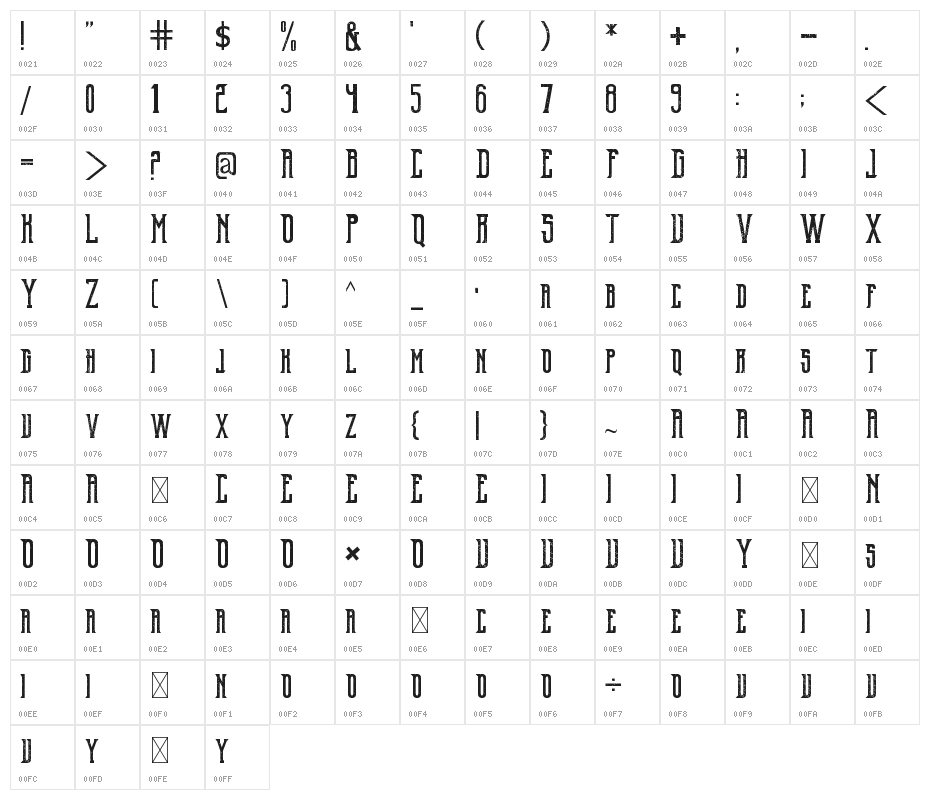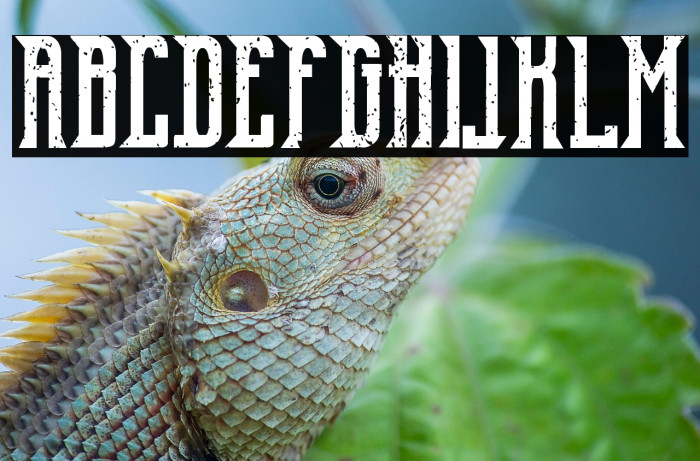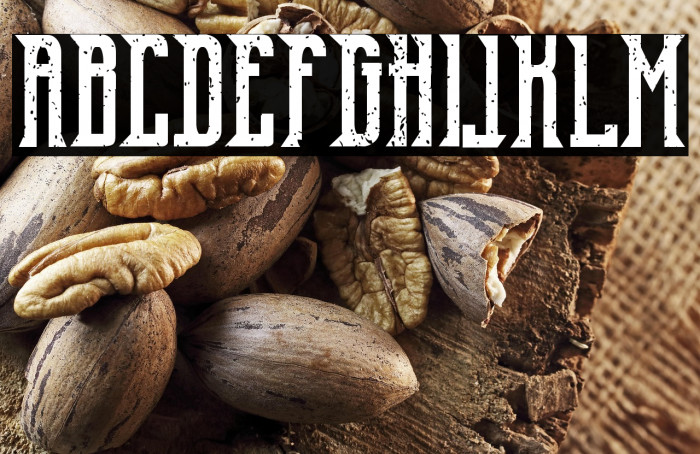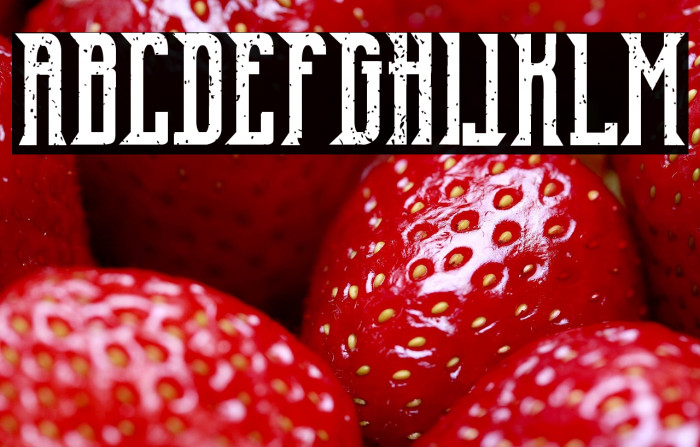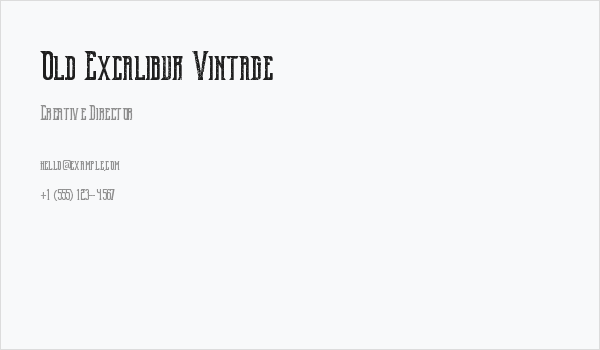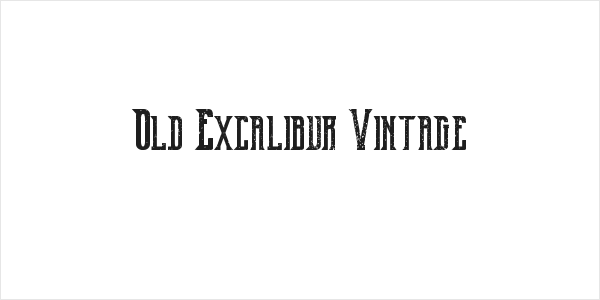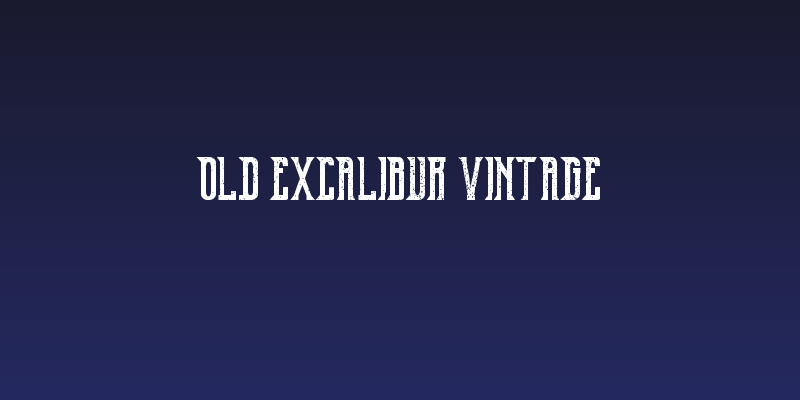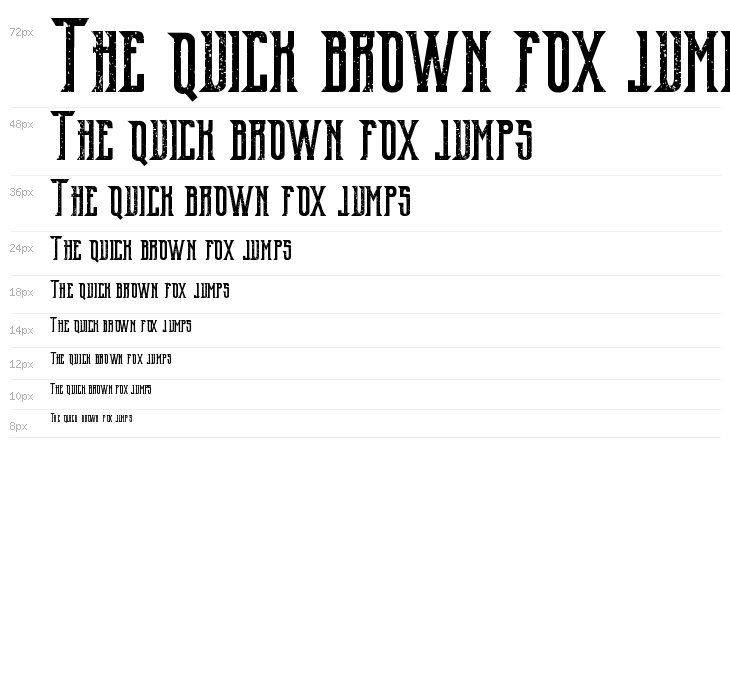
Old Excalibur Vintage Font
Old Excalibur Vintage Description
This font exudes a vintage charm with its distressed and weathered appearance, reminiscent of old signage or historical documents. The uppercase letters are bold and commanding, with sharp serifs and a slightly condensed form that gives them a strong presence. The lowercase letters maintain the same distressed texture, adding to the overall antique feel. Numbers and special characters are equally bold, ensuring consistency throughout the typeface. The texture suggests a sense of history and ruggedness, making it ideal for projects that require a touch of nostalgia or a rustic aesthetic.